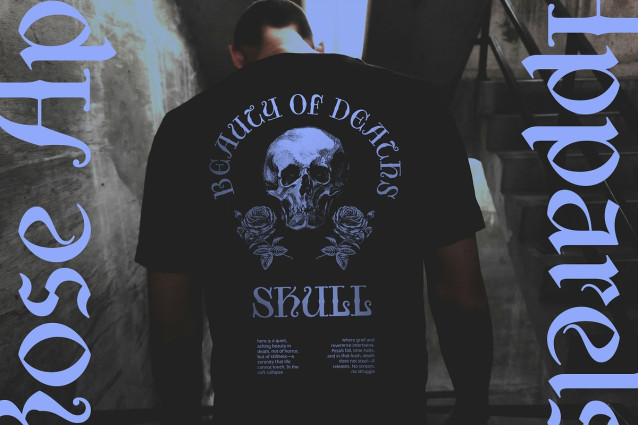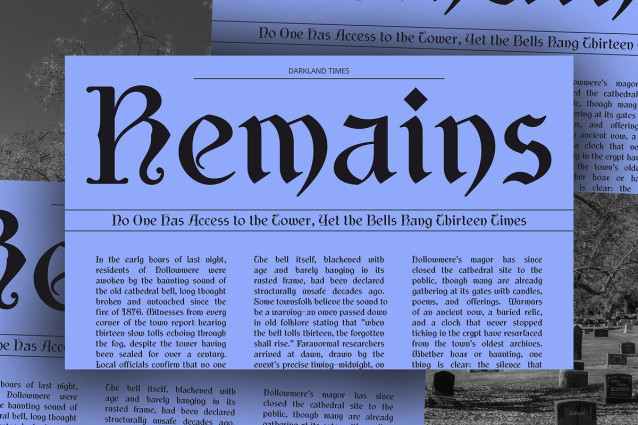
CS Rupinder Font
CS Rupinder Font is a gothic uncial display font featuring a distinctive blend of uncial and gothic design elements. Its curved letterforms are paired with sharp, dramatic strokes, creating a unique contrast that brings a sense of ancient, hand-crafted elegance.
Mystical and Mysterious Aesthetic This font evokes a mystical, otherworldly atmosphere, ideal for projects that require a dark, magical tone. Its historical origins mixed with gothic accents conjure a sense of ancient mystery and allure, perfect for captivating your audience in realms of magic and the unknown.
Perfect for Fantasy and Dark-Themed Designs CS Rupinder is a perfect choice for fantasy-themed projects, from book covers and album art to branding for dark fantasy movies or games. Its striking design is not only eye-catching but deeply evocative, offering a look that resonates with fans of dark lore, epic sagas, and mysterious worlds.
Timeless Yet Theatrical Impact Rooted in history but strikingly theatrical, CS Rupinder delivers both visual drama and timeless appeal. It bridges the gap between ancient tradition and modern creativity, making it versatile for a wide range of design needs. From vintage-style promotional campaigns to contemporary fantasy branding, this font maintains an elegant yet bold presence.